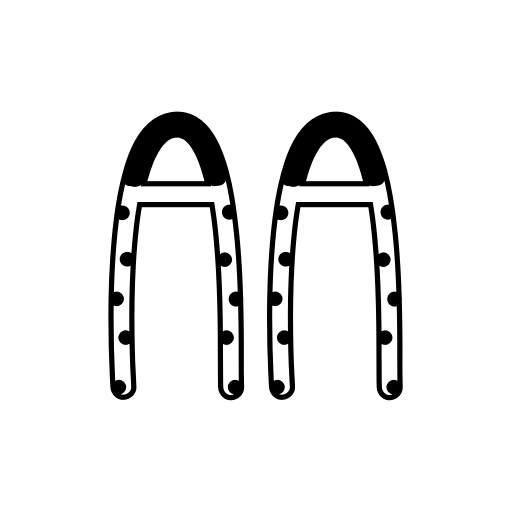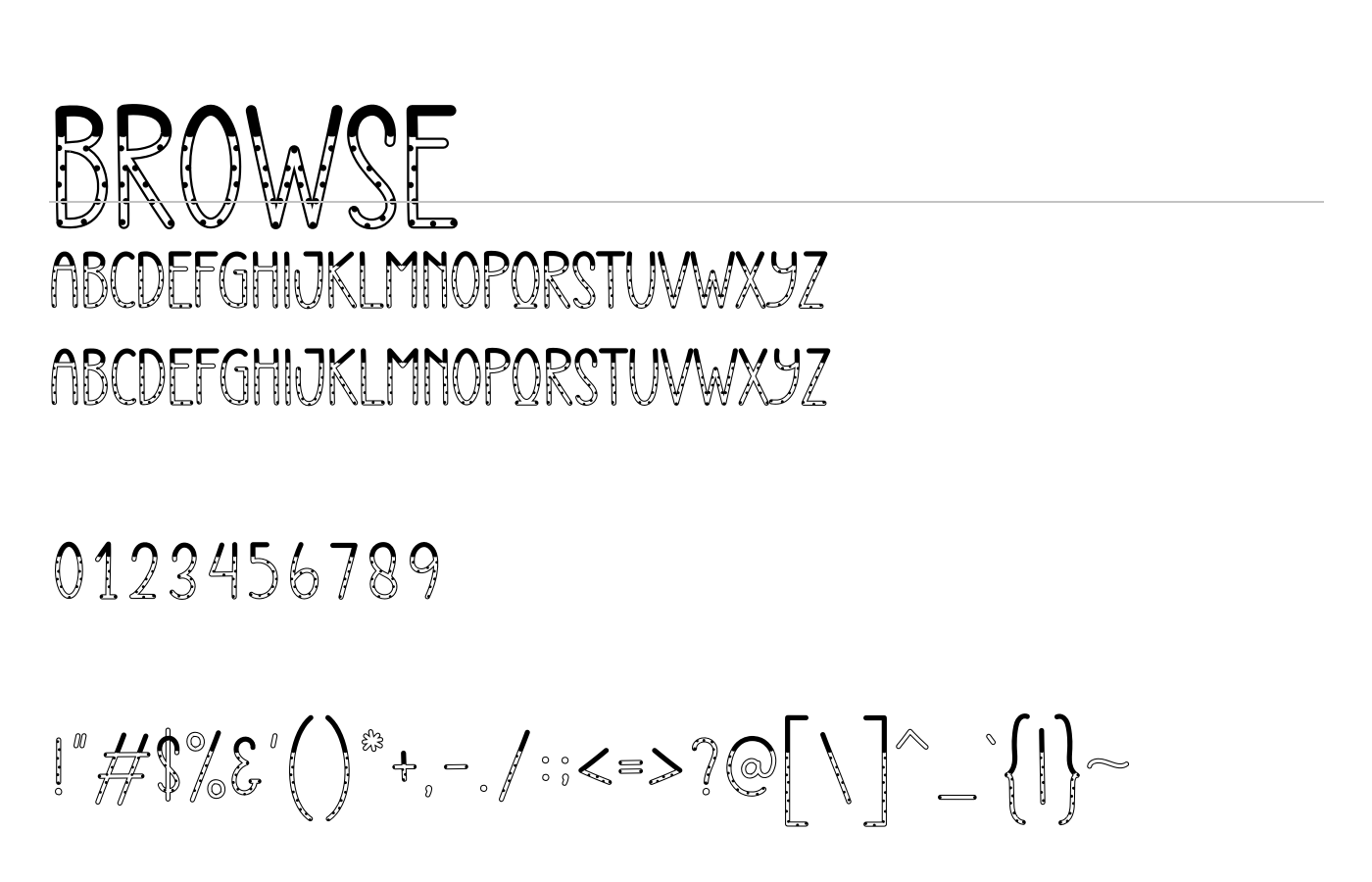
Browse Font is a playful and whimsical sans serif with narrow, tall letterforms featuring dotted and dashed patterns that give it a hand-drawn, decorative feel. Its light weight and unique stroke details make it ideal for creative, informal designs such as posters, children’s books, or logos that want to convey fun and originality. This font stands out best in headlines or display use where its quirky style can shine.
Browse Font